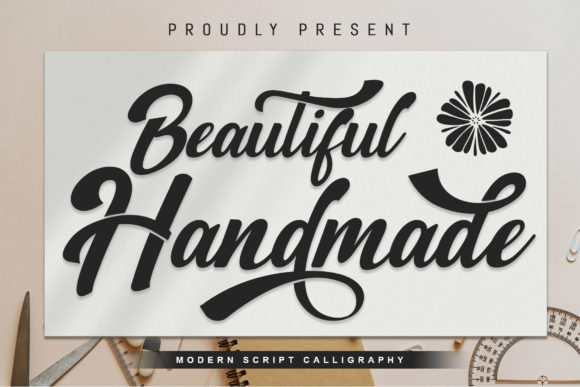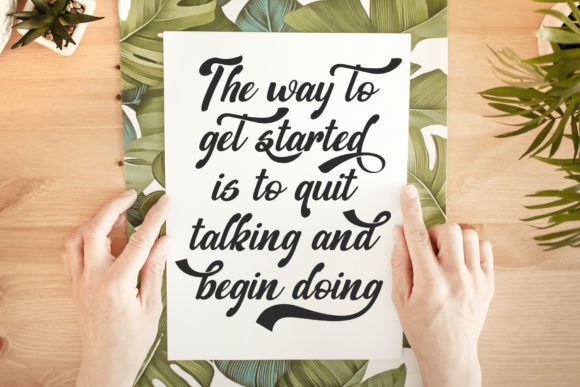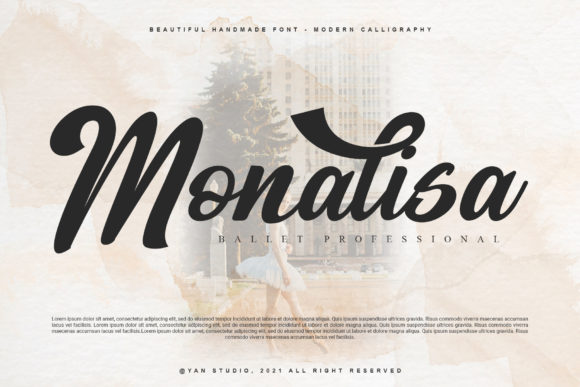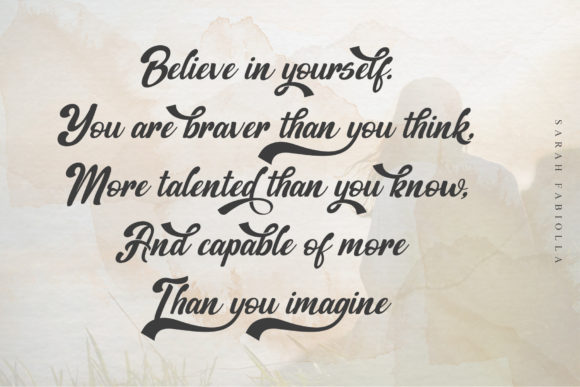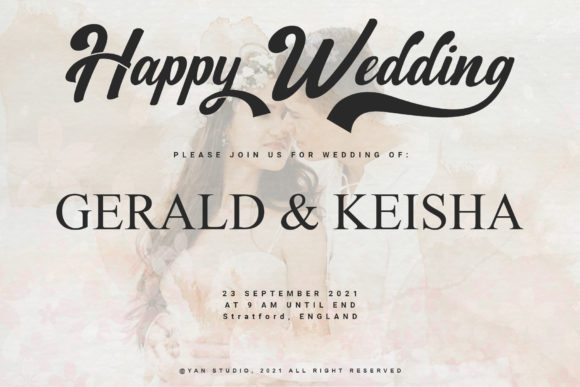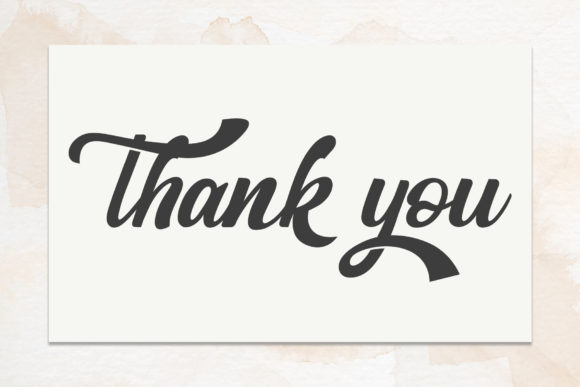
Beautiful Handmade Font
About Beautiful Handmade Font
Beautiful Handmade is an equally gorgeous and bold handwritten font that’s great for delivering any message with confidence, authenticity and charm. This font is PUA encoded which means you can access all glyphs and swashes with ease!